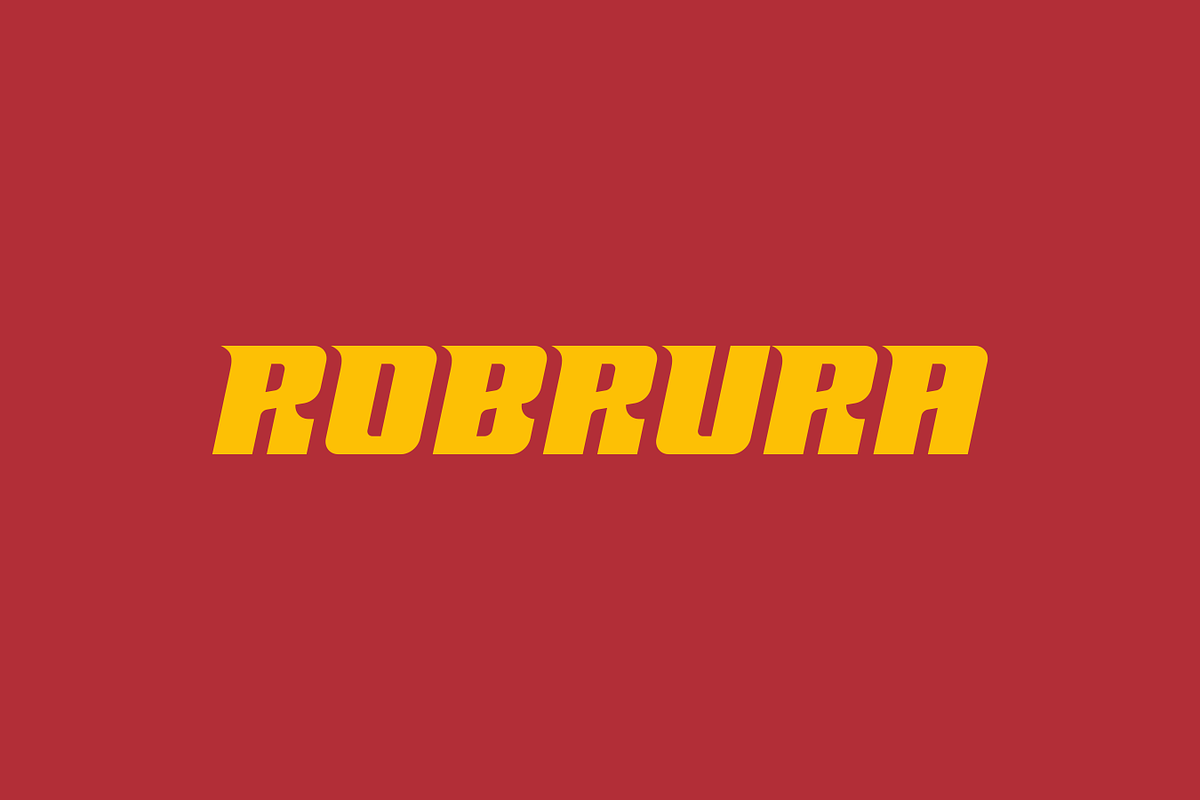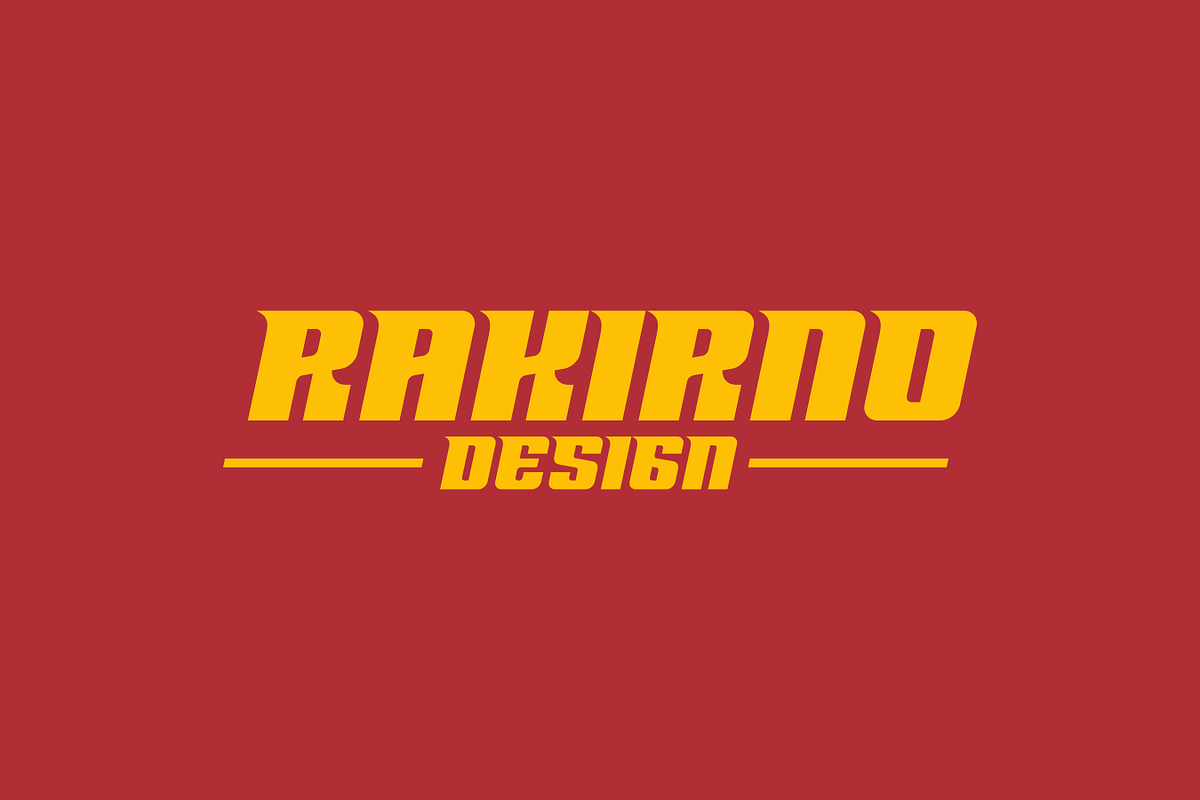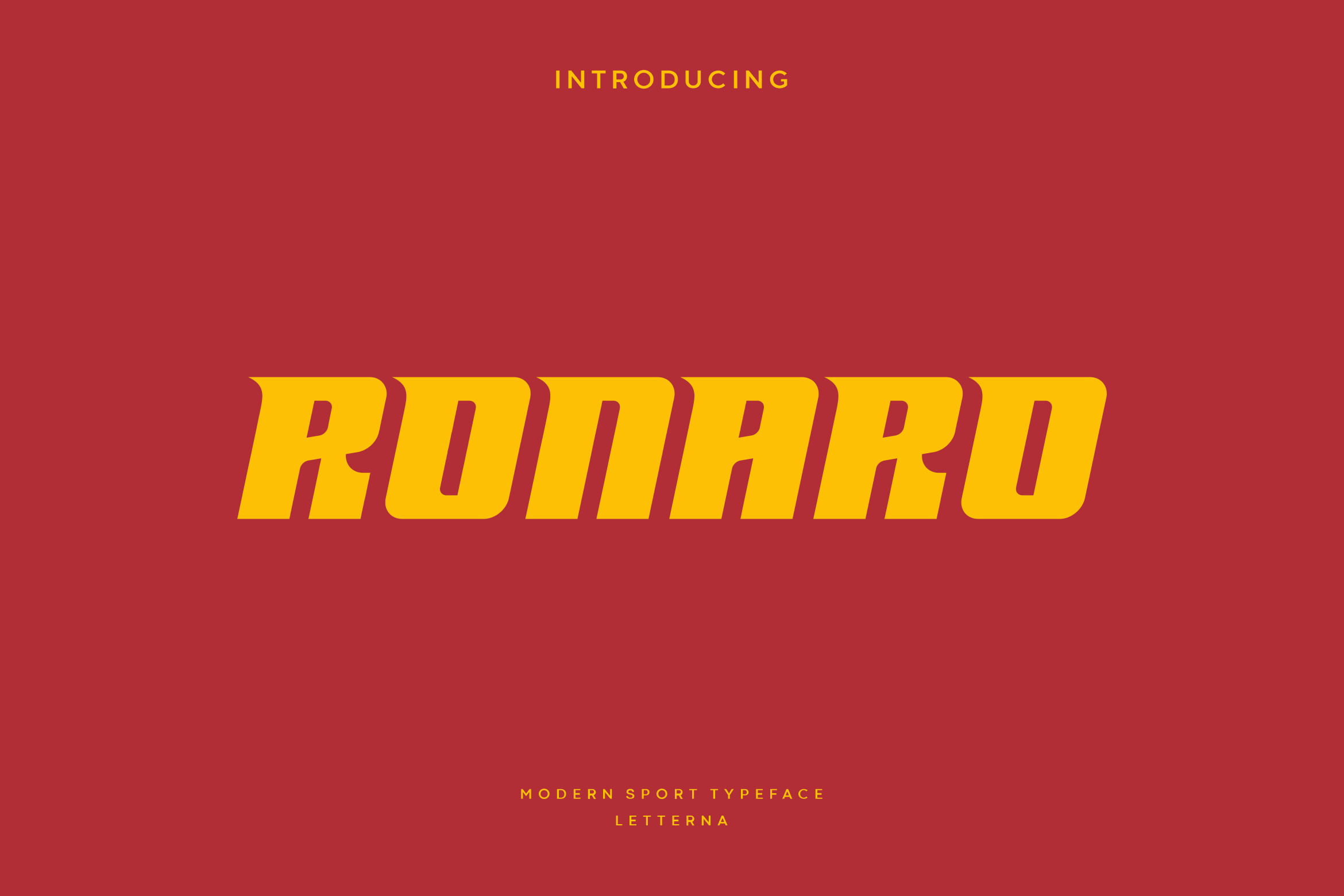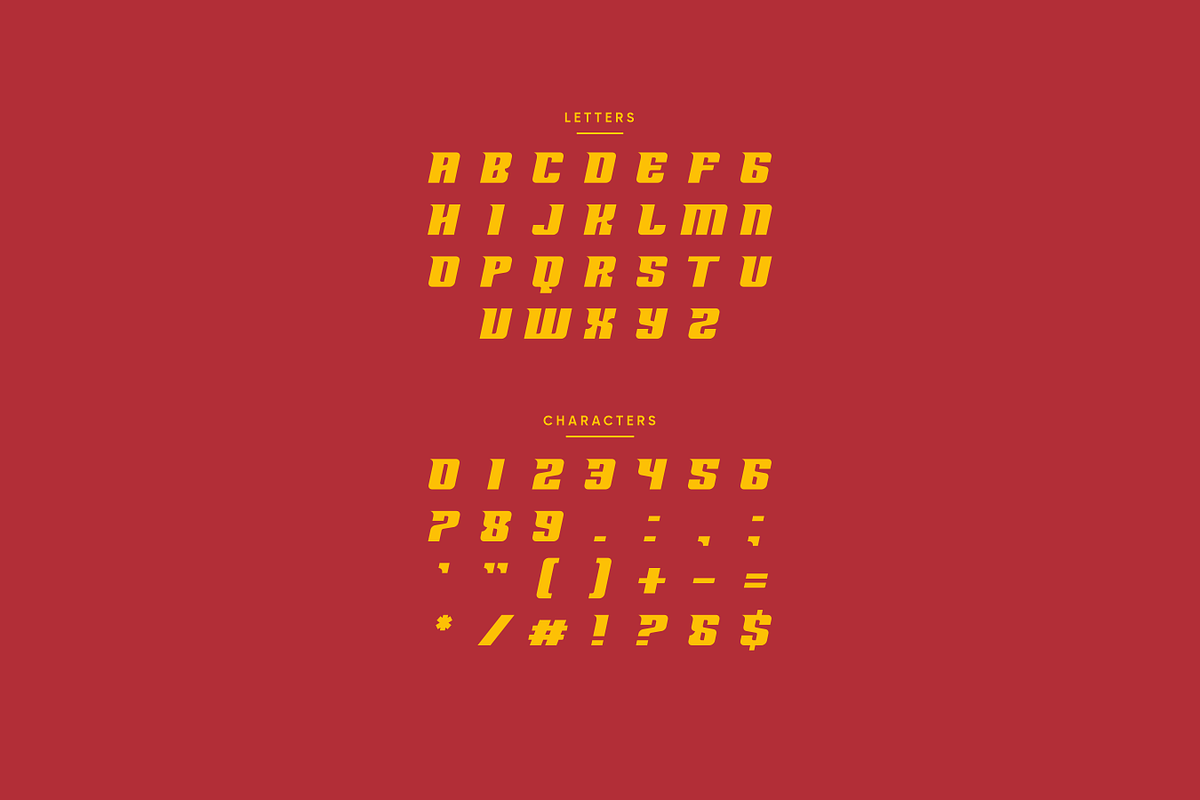
Ronaro - Modern Sport Typeface
Ronaro is a highly athletic and dynamic typeface capable of evoking the energy of sport in its literal and historical form. Building on traditional athletic typeface, this font implement new shape inspired by historical trend and modern typography, giving it the ability to add personality to any set of words. Ronaro can use for any purpose project, especially for creating sport design, and would be great for logo design, poster, magazine, headline and many other designs. This display typeface has been designed to stand out and grab the attention of a wide audience.